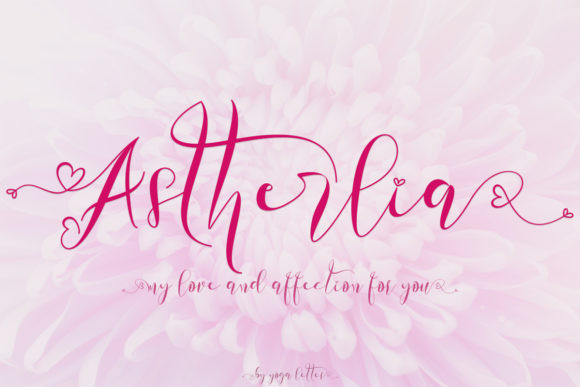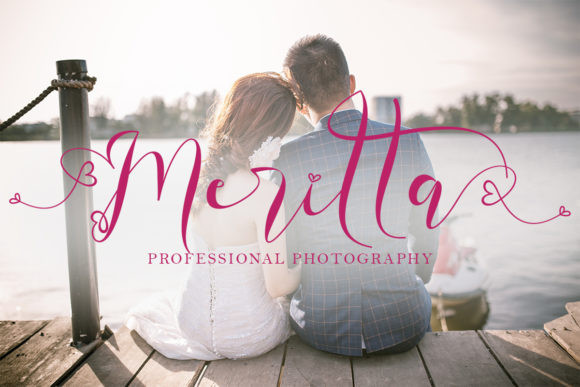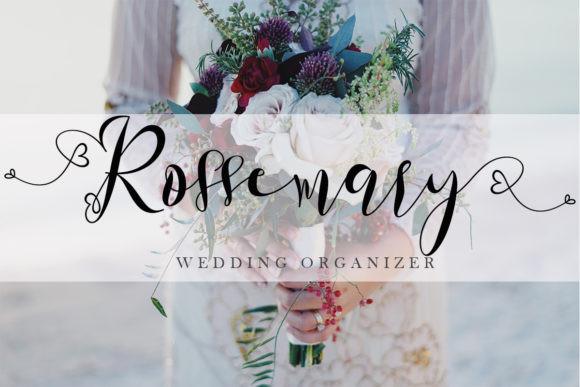
Astherlia Font
Astherlia is a lovely, romantic and beautiful handwritten font. It has beautiful and well balanced characters and as a result, it matches a wide pool of designs. Astherlia features a varying baseline, smooth lines, gorgeous glyphs and stunning alternates. Add it to your most creative ideas and notice how it makes them come alive!